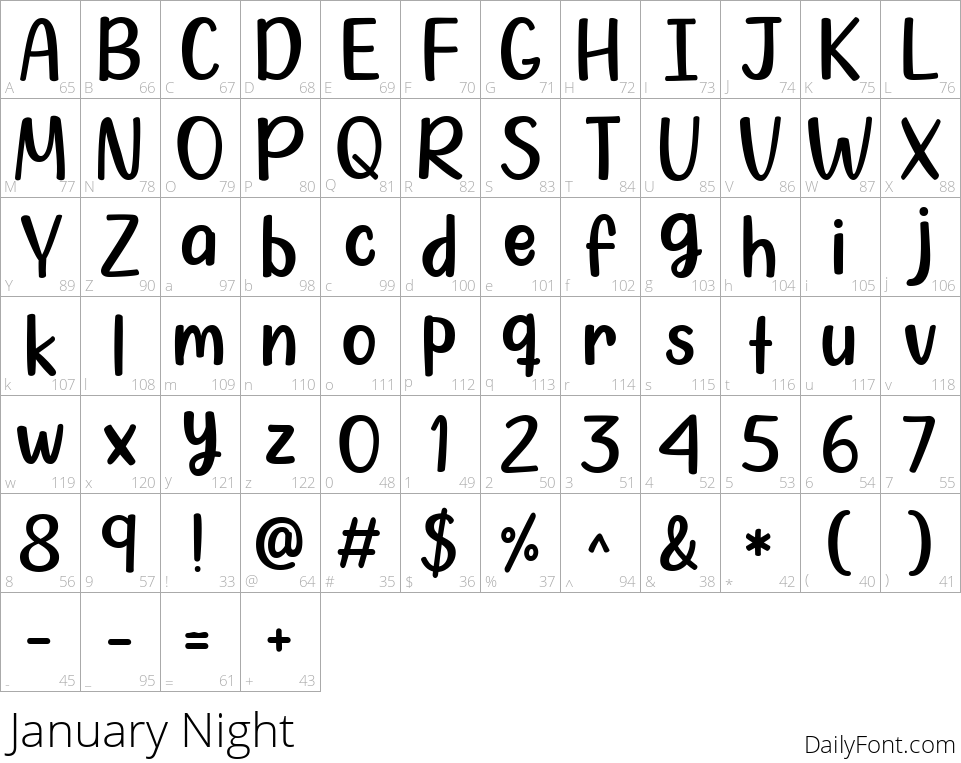
January Night
January Night is a delightful handwritten font designed to bring warmth and whimsy to your creative projects. Its playful, organic strokes make it an ideal choice for crafting personalized invitations, eye-catching logos, and engaging social media posts. Whether you’re creating a heartfelt card or a stylish graphic, January Night adds a cozy, personal touch that resonates with your audience.
Versatile and stylish, this font adapts seamlessly to various design styles, enhancing everything from rustic to modern aesthetics. With January Night, every letter flows effortlessly, inviting connection and engagement. It’s not just a typeface; it’s a component that brings your ideas to life. Embrace the charm of January Night and let your designs stand out with a unique handwritten flair.